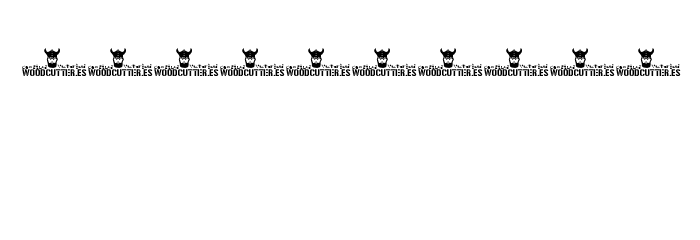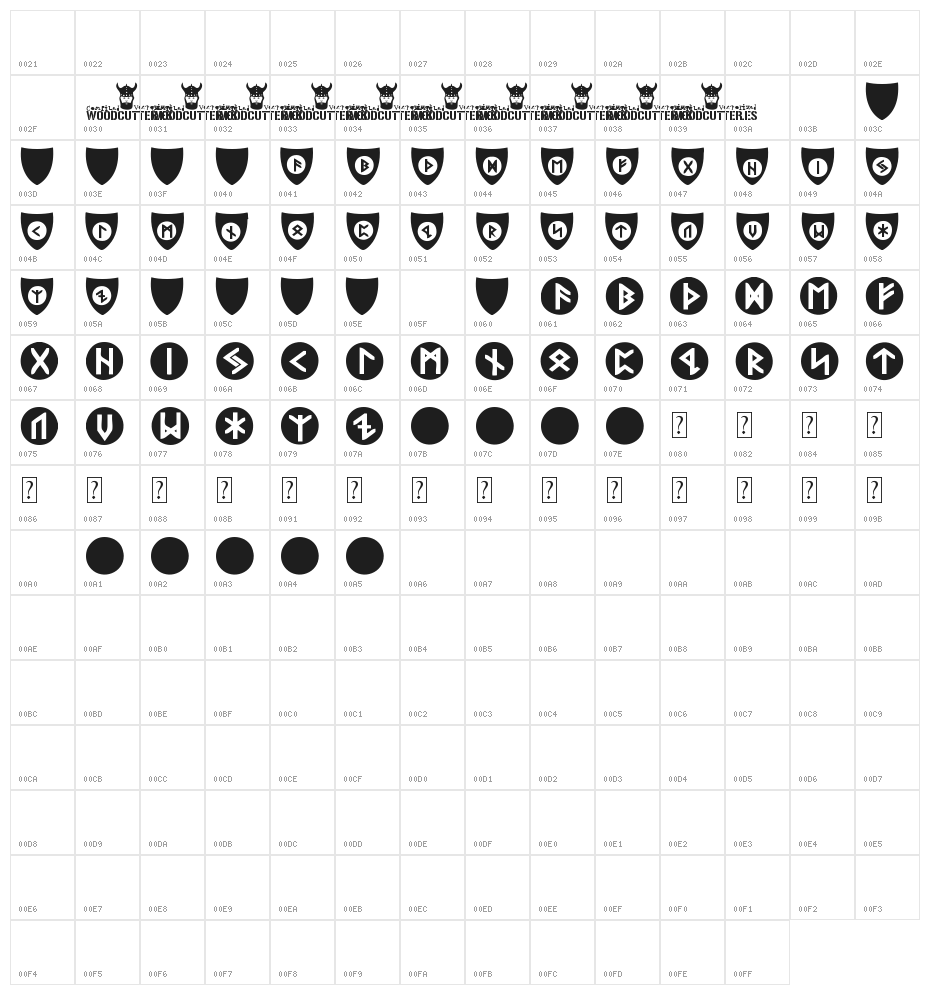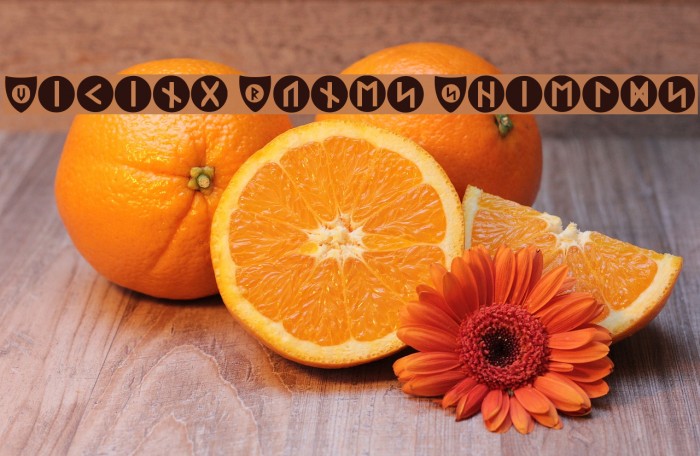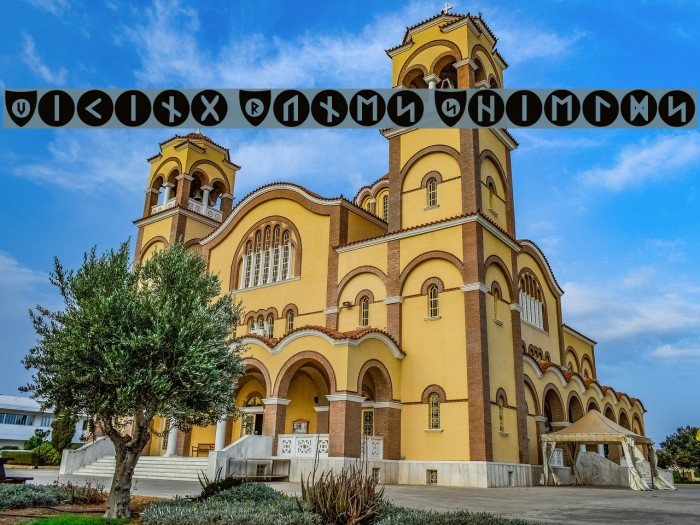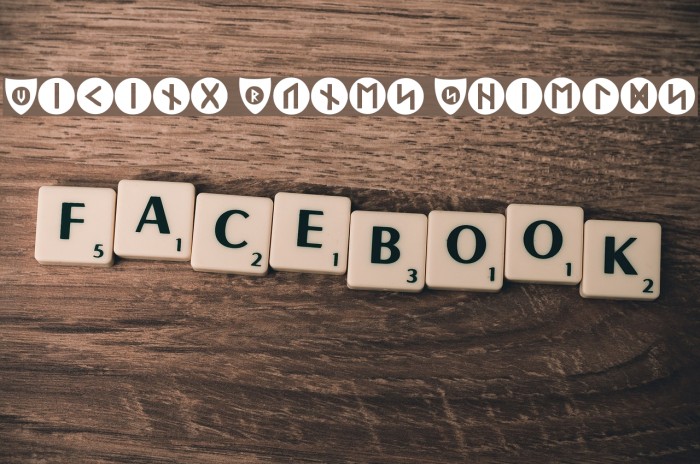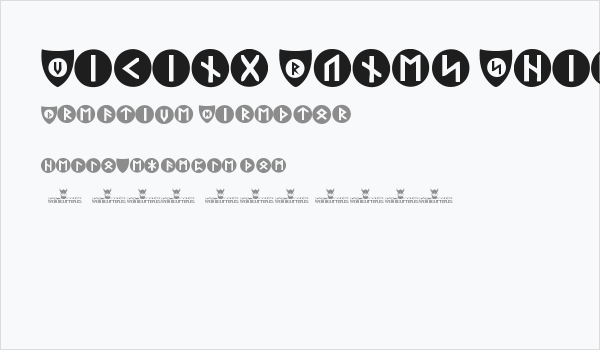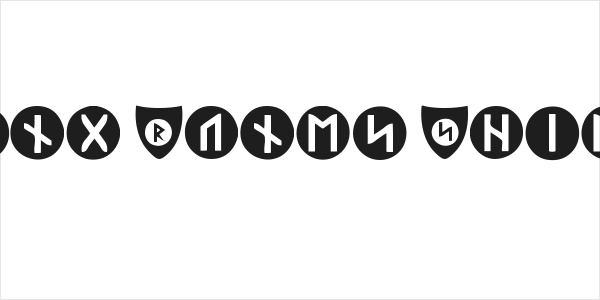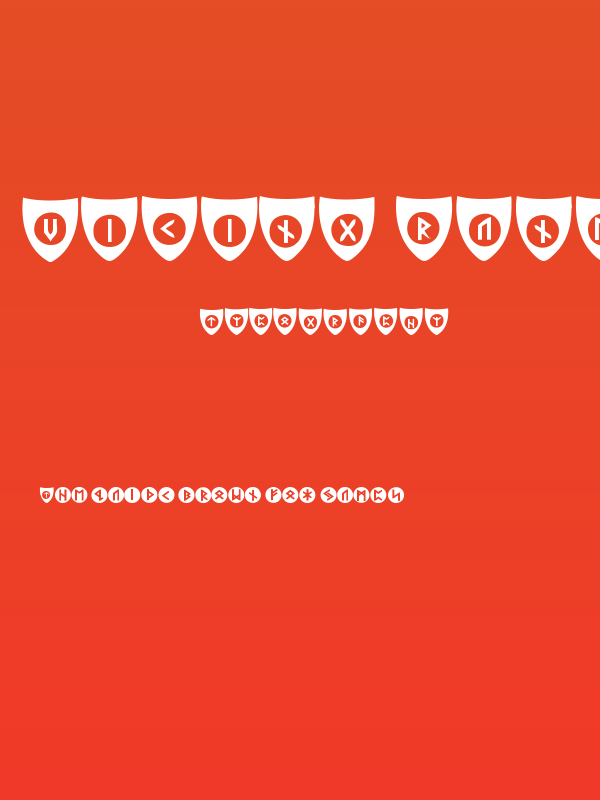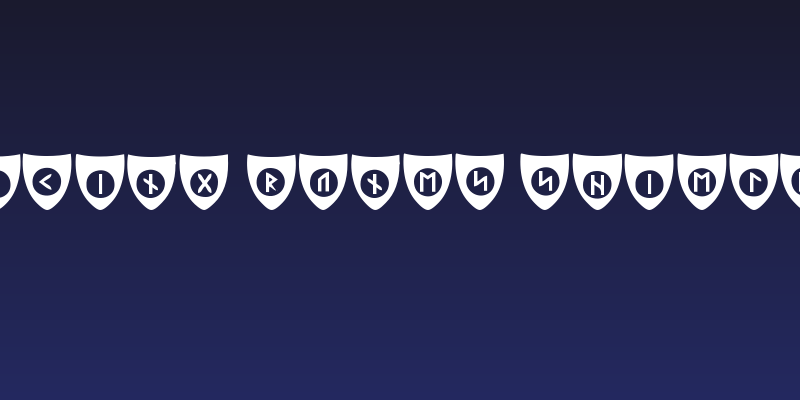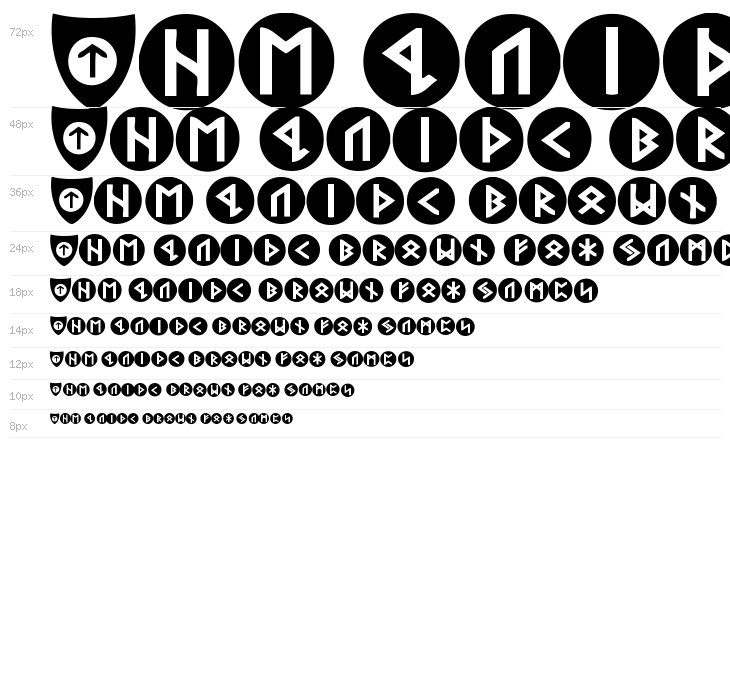
Viking Runes Shields Font
Viking Runes Shields Description
This font is inspired by ancient Viking runes, featuring characters that are enclosed within shield-like shapes. The design is bold and striking, with each letter crafted to resemble traditional runic symbols. The characters are uniform in size and shape, providing a cohesive and consistent look. The font's unique style evokes a sense of history and mystery, making it ideal for projects that require a touch of the ancient or mythical. The bold strokes and geometric forms give it a strong presence, suitable for thematic designs.
| Use Case | Logos, Headlines, Thematic designs |
| Proposed Projects | Ideal for historical or fantasy-themed projects, such as game design, book covers, or themed event materials. |